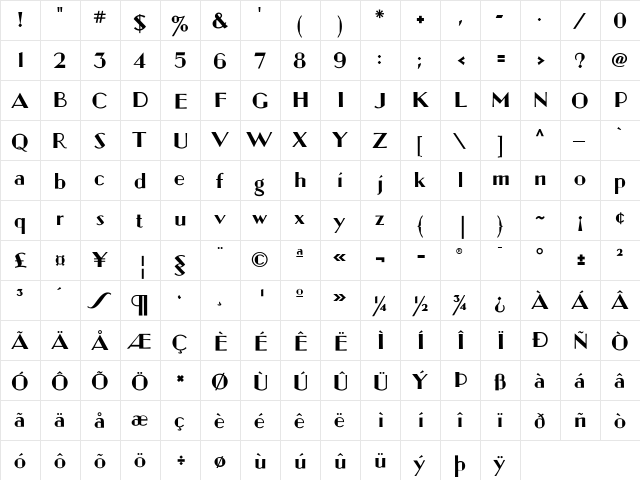
UltramodernClassicSG Regular
Design Context for UltramodernClassicSG Typeface
UltramodernClassicSG has the warm character of retro typography — evoking diners, record sleeves, and the golden age of print advertising.
Ideal for diner signage, record shop branding, 70s/80s-themed projects, and heritage product labels.
Font Pairing: Combine UltramodernClassicSG with a simple slab or neutral sans — period-accurate companions reinforce the vintage feel without competing for attention.
Pro Tip: Lean into UltramodernClassicSG's period character by pairing it with aged paper textures, muted colour palettes, and vintage illustration styles.